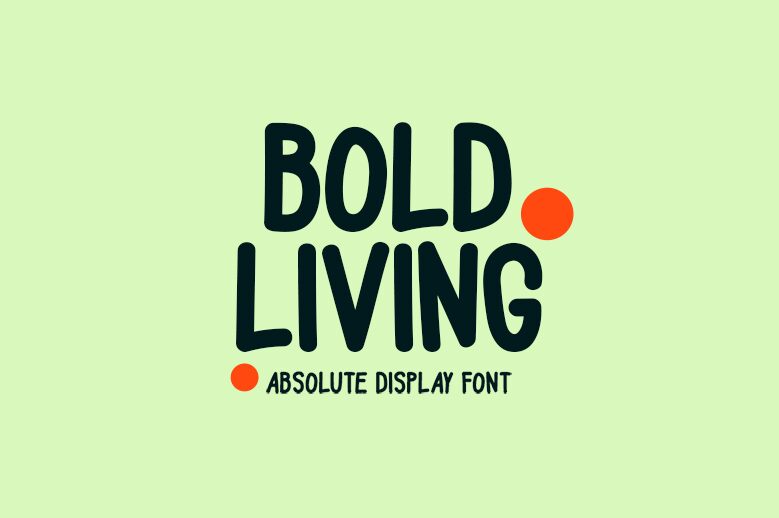
Bold Living font family designed by Md Shohail Bhuian is a handwritten typeface featuring an organic look. It is made of 2 font styles that blend soft and nimble strokes into readable characters. This free font family has a friendly and approachable feel, in a casual and informal tone perfect for everyday use. A youthful and lively spirit is felt in all its expressive letters.
Bold Living can make a great foundation for fun posters, friendly invitations, personalized greeting cards, and casual magazines. It’s also suitable for banners, flyers, social media posts, ads, gaming headlines, and everything youthful and energetic.